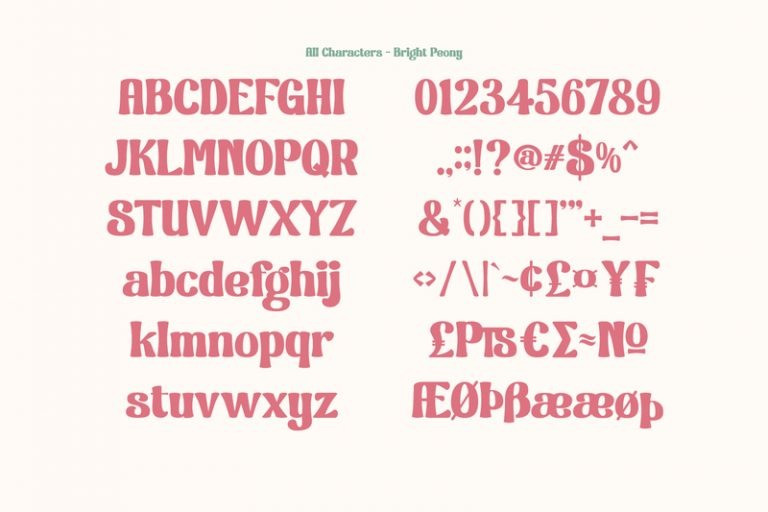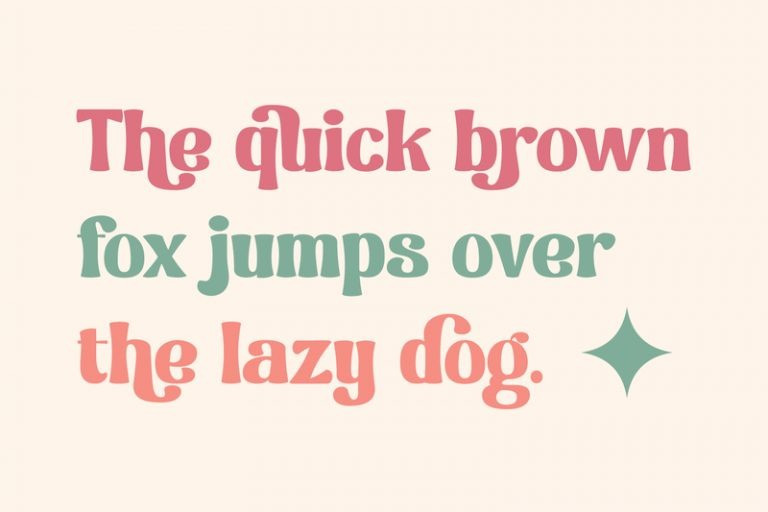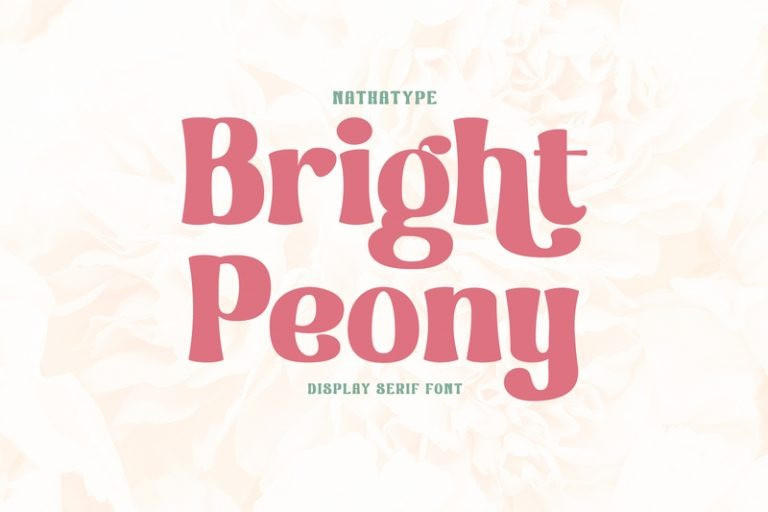
Bright Peony Font
Bright Peony Display Font is a lovely display serif font to show friendly, feminim, modern nuances. It is truly legible due to its high contrast and simply noticeable forms. Therefore, you can apply this font for any text sizes and lengths. You may also enjoy various features available in this font.